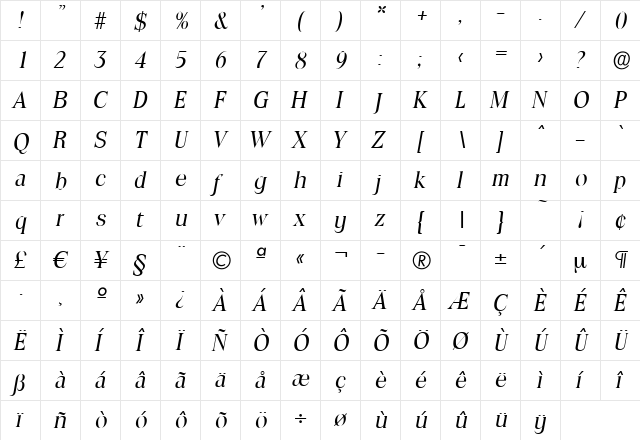
RalphBecker Italic
Design Context for RalphBecker Typeface
RalphBecker takes a measured approach to typography — its balanced proportions and neutral character make it a reliable workhorse for both digital and print work. The slanted form adds forward momentum and visual energy.